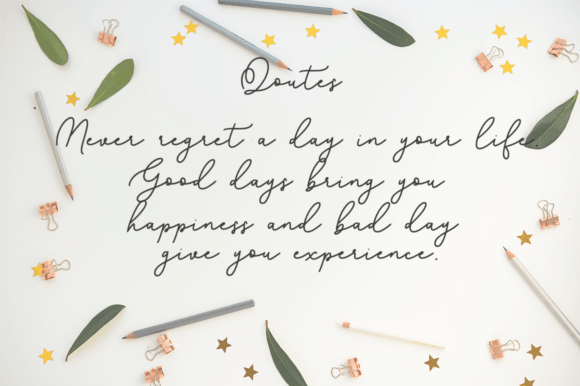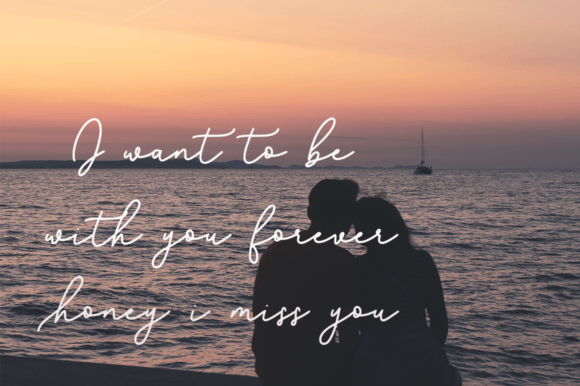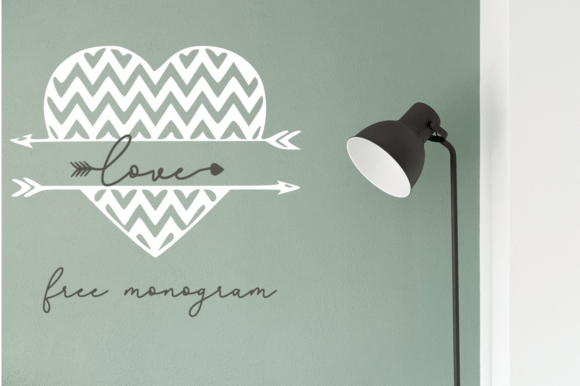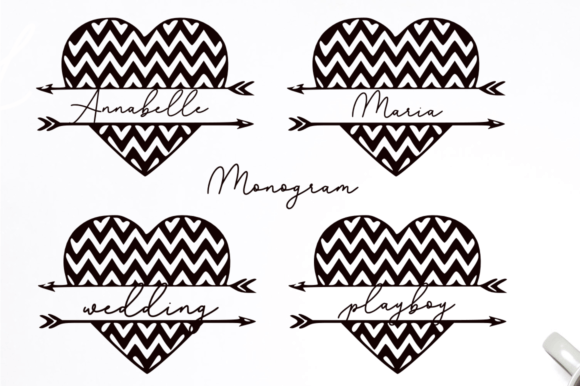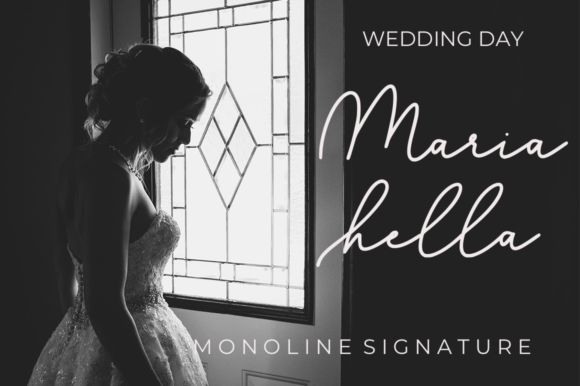
About Love in Lose Font
Introducing Love in Lose, a font that perfectly balances charm and elegance. This font not only looks stunning but also adds a touch of sophistication to a wide range of designs. Love in Lose is the ideal choice for wedding invitations, thank-you cards, quotes, greeting cards, logos, business cards, and any other design project that benefits from a beautiful handwritten touch.
What sets Love in Lose apart is its ability to convey both charm and elegance seamlessly. The handwritten style adds a personal and authentic touch, making it well-suited for projects that require a warm and inviting aesthetic. Imagine Love in Lose gracing wedding invitations, where it brings a sense of romance and timeless beauty to the celebration of love.
The versatility of Love in Lose makes it a standout choice for various design applications. Whether used on business cards for a touch of personalized elegance or on logos to communicate authenticity and style, this font adapts effortlessly to different contexts.
Visualize Love in Lose enhancing your quotes, turning simple words into visually appealing expressions. Envision it on greeting cards, creating a memorable and heartfelt message. Its charm and elegance make it a versatile font that brings a touch of sophistication to your creative projects.
In conclusion, Love in Lose is more than just a font; it’s a charming and elegant companion ready to enhance your designs. Download it today and experience how it transforms wedding invitations, quotes, logos, and more into expressions of timeless beauty. Make Love in Lose an essential part of your font collection, and let it be the key to unlocking a world of sophistication and charm in your designs!